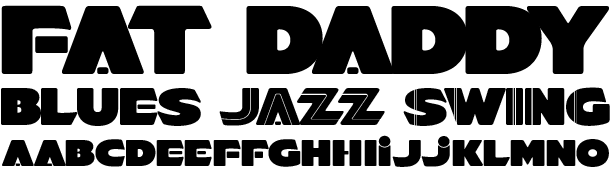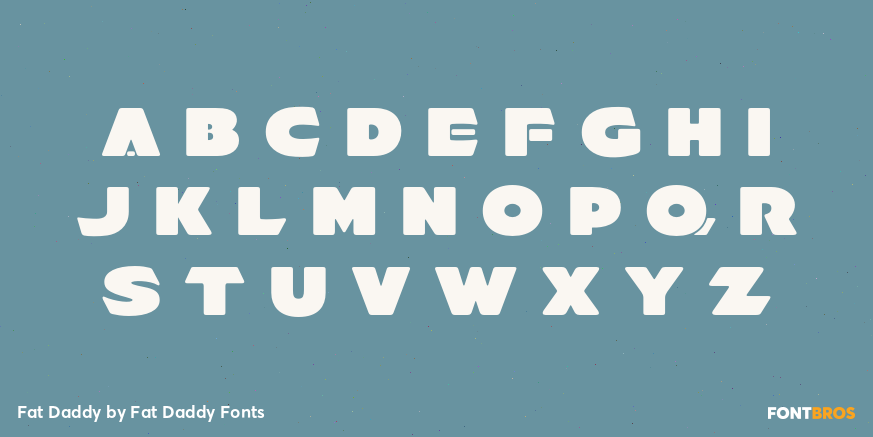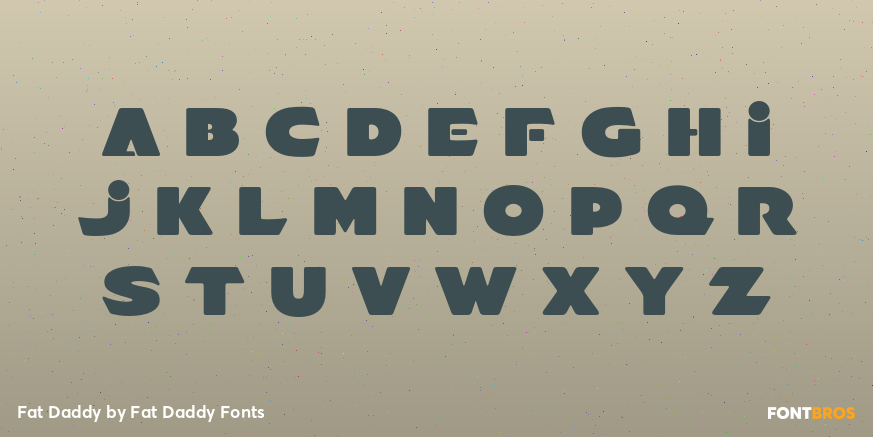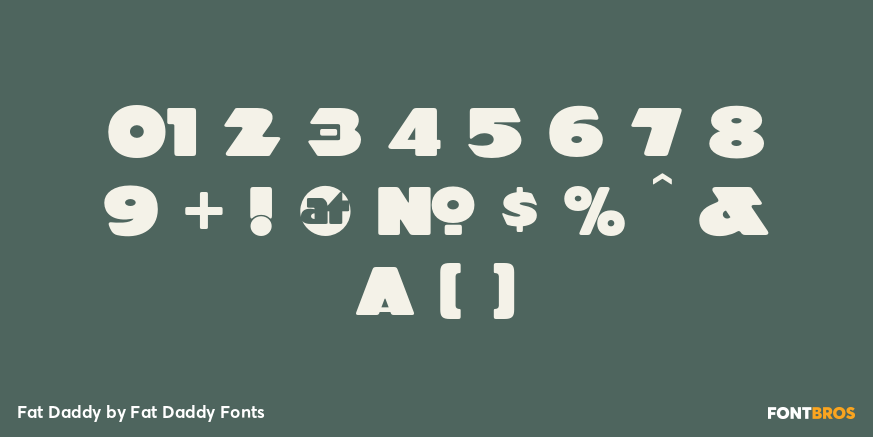
Fat Daddy
Font Family by Fat Daddy Fonts
Inspired by an Alf Becker letter style, Fat Daddy is an extra bold, art deco font that is easy to read and sure to get noticed. Font set includes 3 versions.